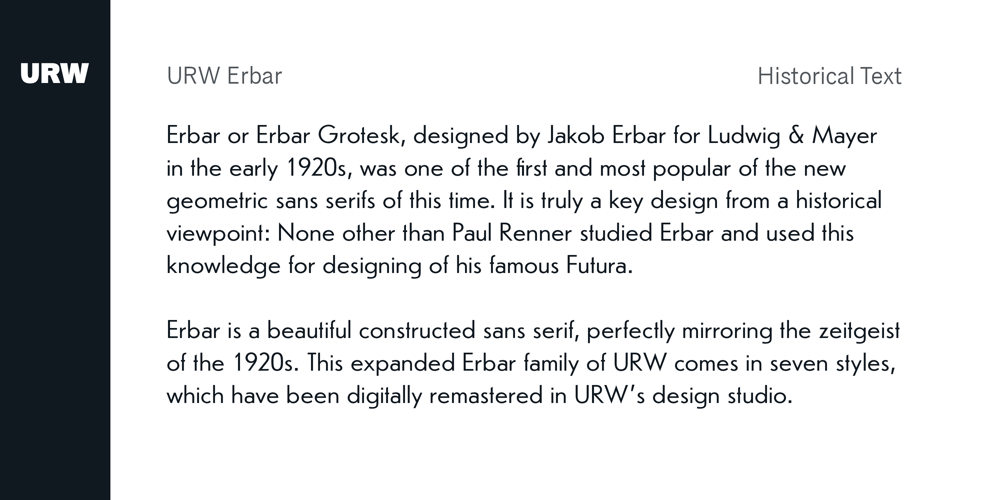
URW Erbar D Font Family was designed by Jakob Erbar and published by URW Type Foundry. URW Erbar D contains 8 styles and family package options. The Erbar font was designed by Jakob Erbar for the Ludwig & Mayer/Neufville foundry in 1930.